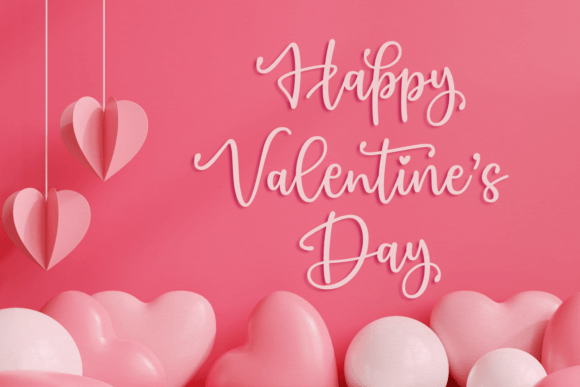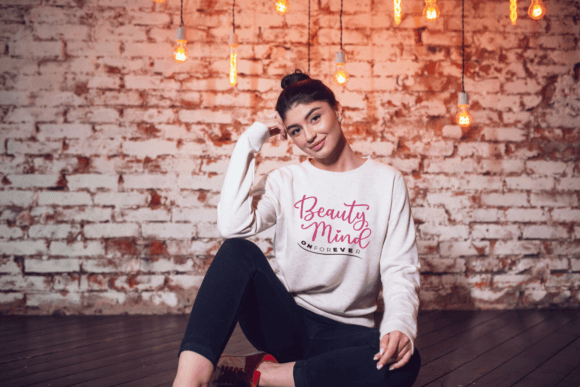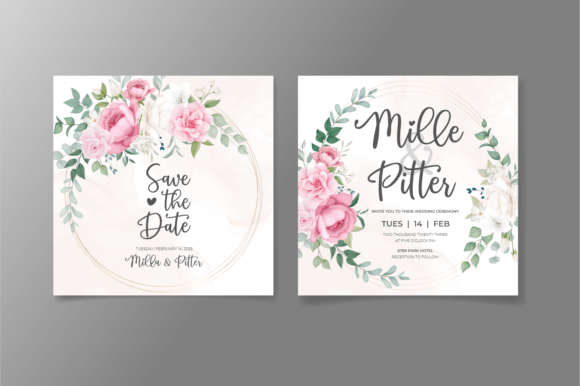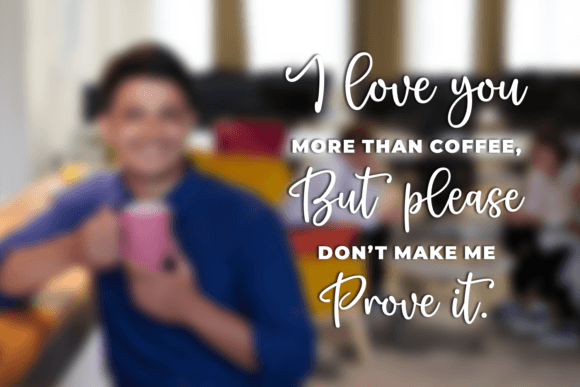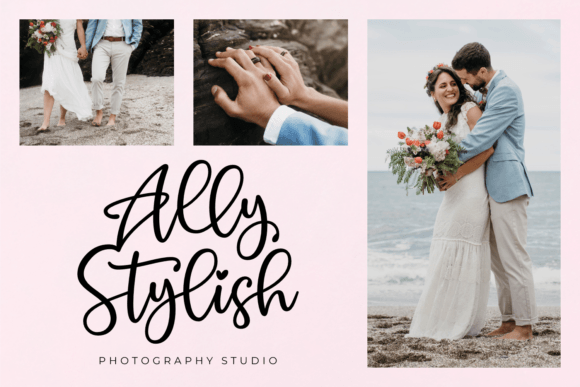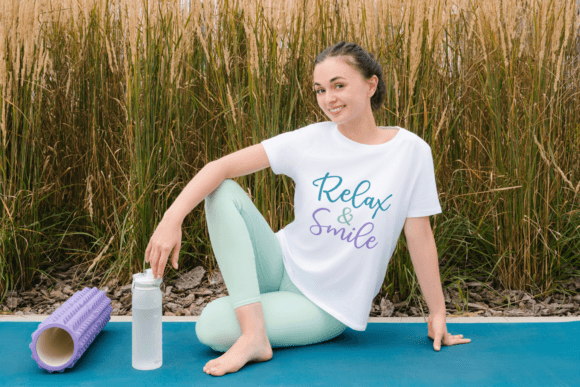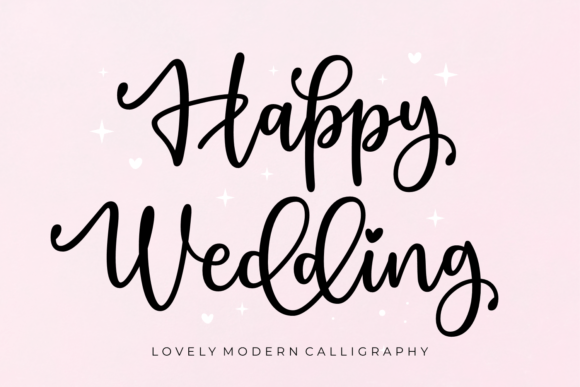
Introducing Happy Wedding Font: The Perfect Choice for Your Special Day
Are you a designer or crafter looking for the perfect font to make your wedding projects stand out? Look no further than the Happy Wedding font! This beautiful, handwritten script font is specifically designed for wedding use, making it an ideal choice for creating stunning wedding invitations, decorations, and other celebratory materials.
A Font that’s Full of Love
Happy Wedding is a wonderful, impactful handwritten script font that’s perfectly suited to wedding use. The font features a sweet and playful design, complete with a heart to dot the letter i – a thoughtful touch that adds a romantic flair to any project. Whether you’re creating a wedding invitation, a save-the-date card, or a decorative sign, this font is sure to bring a smile to your face and a touch of whimsy to your design.
One of the best things about the Happy Wedding font is that it’s PUA (Private Use Area) encoded. This means that you can access all of the amazing glyphs and ligatures with ease, giving you a wide range of creative options to enhance your designs. With PUA encoding, you can easily insert special characters, such as hearts, flowers, and other decorative elements, to add a personal touch to your projects.
Happy Wedding font is a versatile design tool that’s perfect for both designers and crafters. Whether you’re creating digital files or handmade crafts, this font is easy to use and adaptable to a wide range of projects. Designers can use Happy Wedding to create stunning wedding invitations, stationery, and other digital files, while crafters can use it to add a personal touch to handmade wedding decorations, signs, and other DIY projects.
Why Choose Happy Wedding Font?
So why choose Happy Wedding font for your wedding projects? Here are just a few reasons:
- Unique and eye-catching design: Happy Wedding font features a one-of-a-kind design that’s sure to stand out from the crowd.
- Ease of use: With PUA encoding, you can easily access all of the font’s glyphs and ligatures, making it easy to create stunning designs.
- Versatility: Happy Wedding font is perfect for a wide range of wedding projects, from digital files to handmade crafts.
- Romantic flair: The font’s sweet and playful design, complete with a heart to dot the letter i, adds a romantic touch to any project.
Tips for Using Happy Wedding Font
Here are a few tips for getting the most out of Happy Wedding font:
- Pair it with other fonts: Happy Wedding font pairs well with a wide range of other fonts, so feel free to experiment with different combinations to find the perfect look for your project.
- Use it for headings and titles: The font’s bold and playful design makes it perfect for headings and titles, adding a touch of whimsy to your project.
- Experiment with colors: Happy Wedding font looks great in a wide range of colors, so don’t be afraid to experiment with different hues and shades to find the perfect look for your project.
In conclusion, Happy Wedding font is a wonderful, impactful handwritten script font that’s perfectly suited to wedding use. With its sweet and playful design, PUA encoding, and versatility, it’s the perfect choice for designers and crafters looking to create stunning wedding projects. Whether you’re creating digital files or handmade crafts, Happy Wedding font is sure to bring a touch of romance and whimsy to your designs.